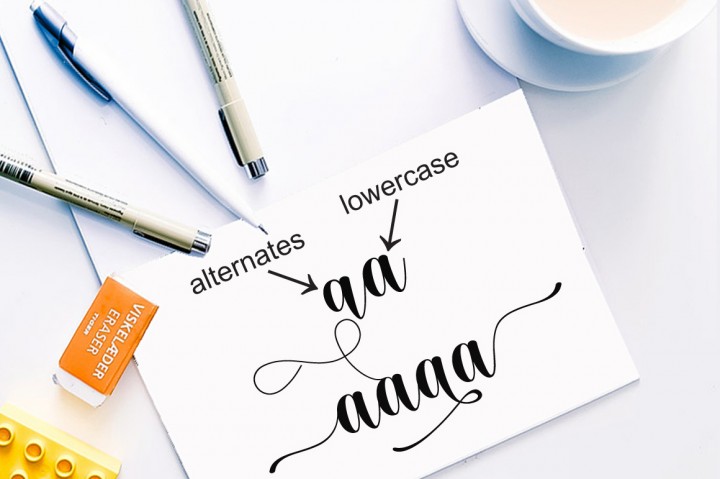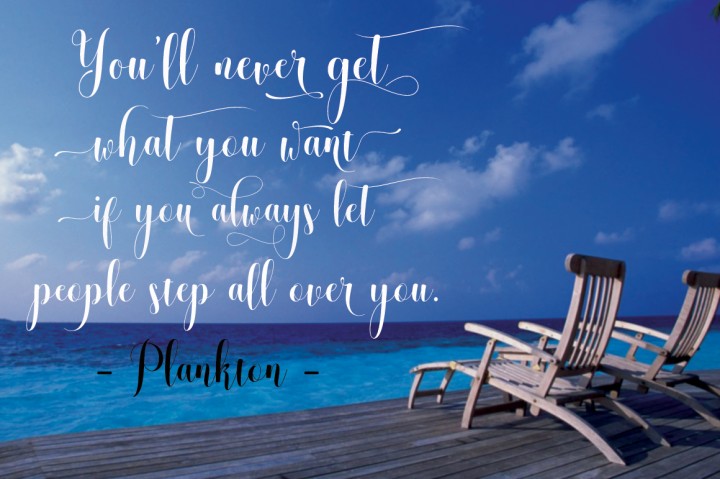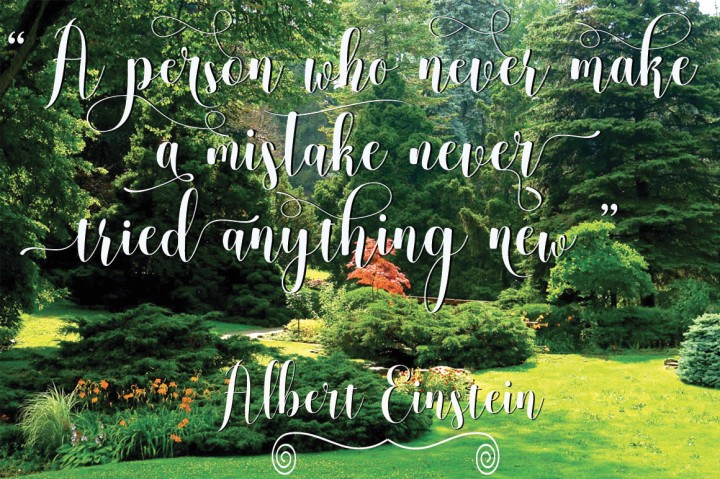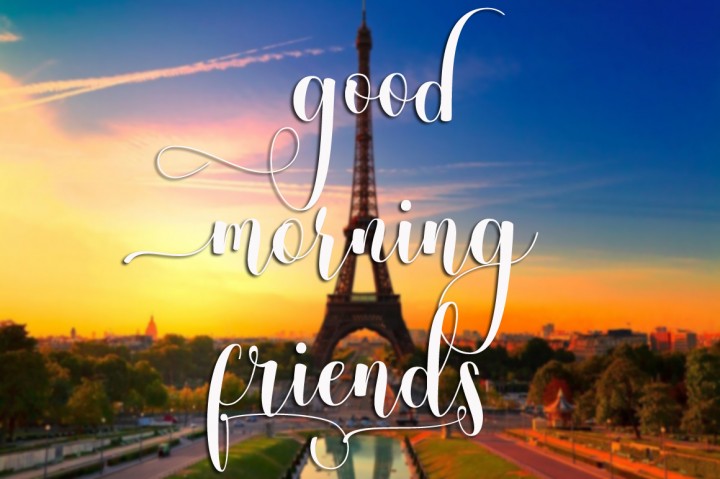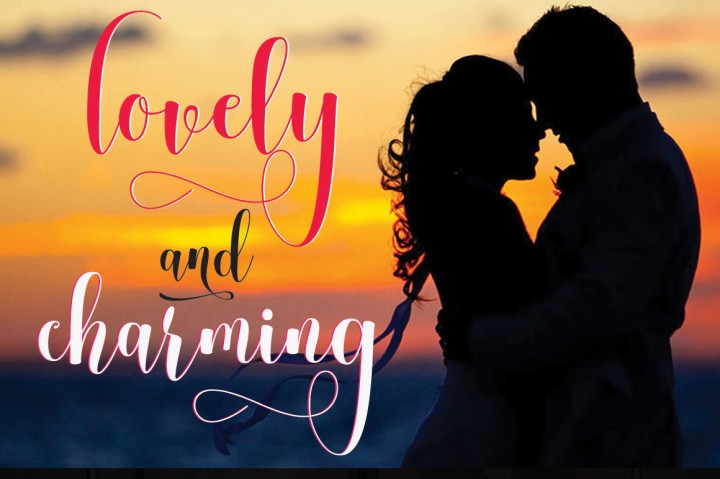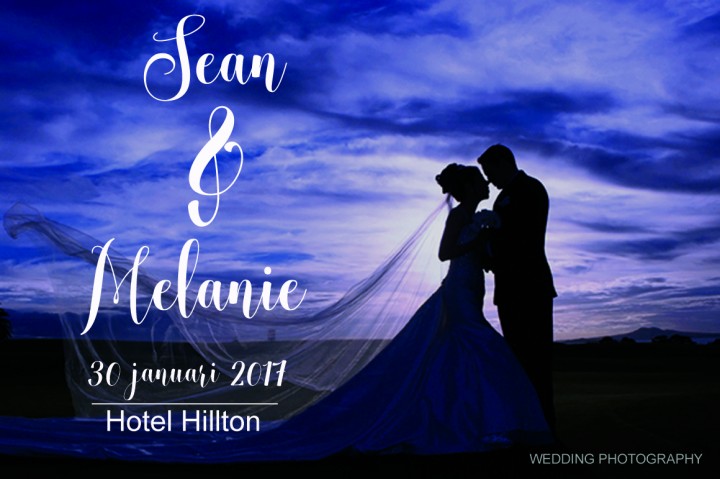
Introduction to Melisca Font
Have you ever found yourself lost in a sea of creative possibilities, struggling to find the perfect font to bring your design to life? We’ve all been there. The blank page stares back at us, a reminder that the perfect font is just out of reach. But what if I told you that there’s a font out there that can change all that? A font that’s not just any font, but a game-changer for designers like you.
Meet the Melisca Font, a fresh, modern handwritten script font that’s about to revolutionize the way you approach your creative projects. With its hand-drawn design and calligraphy style flair, this font is a design resource like no other. Whether you’re working on a high-quality brochure, a website, or a social media campaign, the Melisca Font is the perfect addition to your toolkit.
Key Features of Melisca Font
- Designed with a focus on legibility and readability, ensuring that your text-based content stands out in your creative project.
Honest Review: Melisca Font
I recently had the opportunity to work with the Melisca Font, and I must say it’s a high-quality addition to any design resource. The font’s unique style and elegance make it perfect for a creative project that requires a touch of sophistication.
- ✨ The font’s transparency feature allows for seamless integration with a transparent background, making it ideal for logo designs and branding.
- ✨ The extensive character set ensures that it can be used for a wide range of languages and cultural contexts.
- ⚠️ The font’s intricate design can make it difficult to read at very small sizes.
Overall, I’m impressed with the Melisca Font. It’s a solid choice for designers who want a high-quality, versatile font for their creative projects. Just be mindful of its limitations, and you’ll be able to get the most out of it.
Introduction to Melisca Font
Melisca Font is a high-quality design resource ideal for creative projects that require a touch of elegance and sophistication. With a transparent background, this versatile font is perfect for designers and artists looking to add a unique touch to their work.
Tips for Getting the Most Out of Melisca Font
- Use the font in combination with other design elements to create a cohesive look.
- Take advantage of the transparent background to create custom designs and graphics.
Common Use Cases for Melisca Font
- Business cards and branding materials
- Wedding and event graphics
- Design projects that require a touch of elegance and sophistication